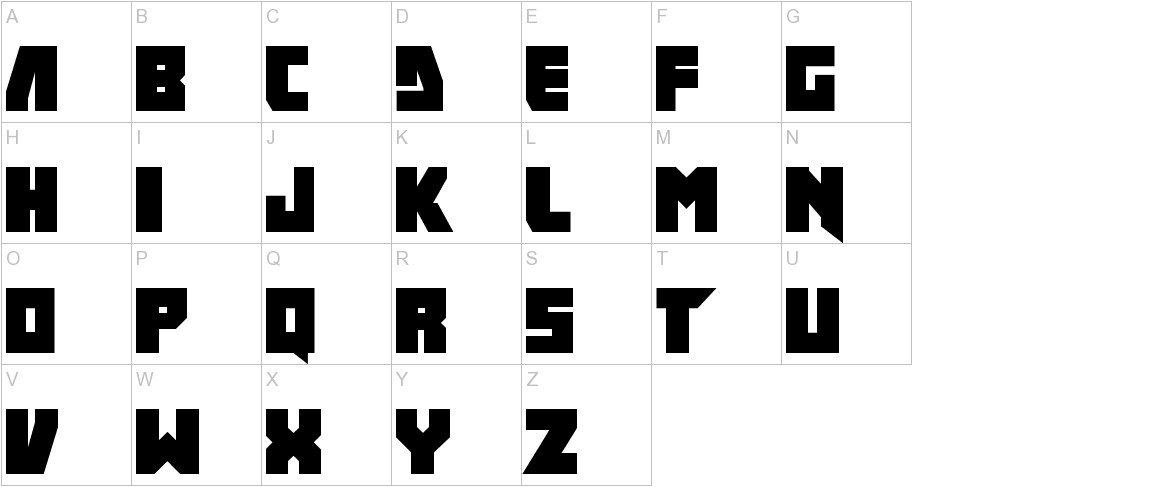
I fink u freeky
This font is inspired by lettering used by the band Die Antwoord. Punctuation, numbers, symbols, accented characters and Cyrillic letters were freely added.